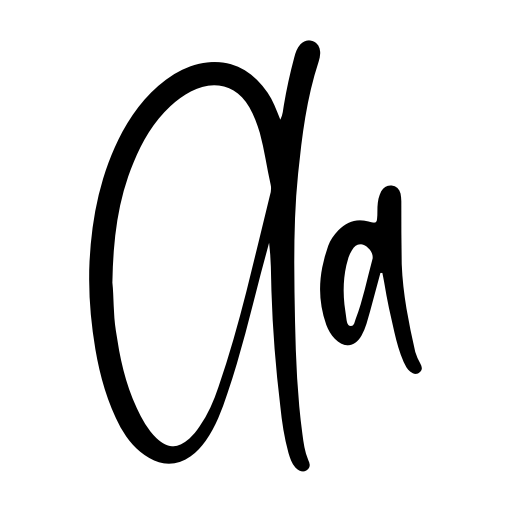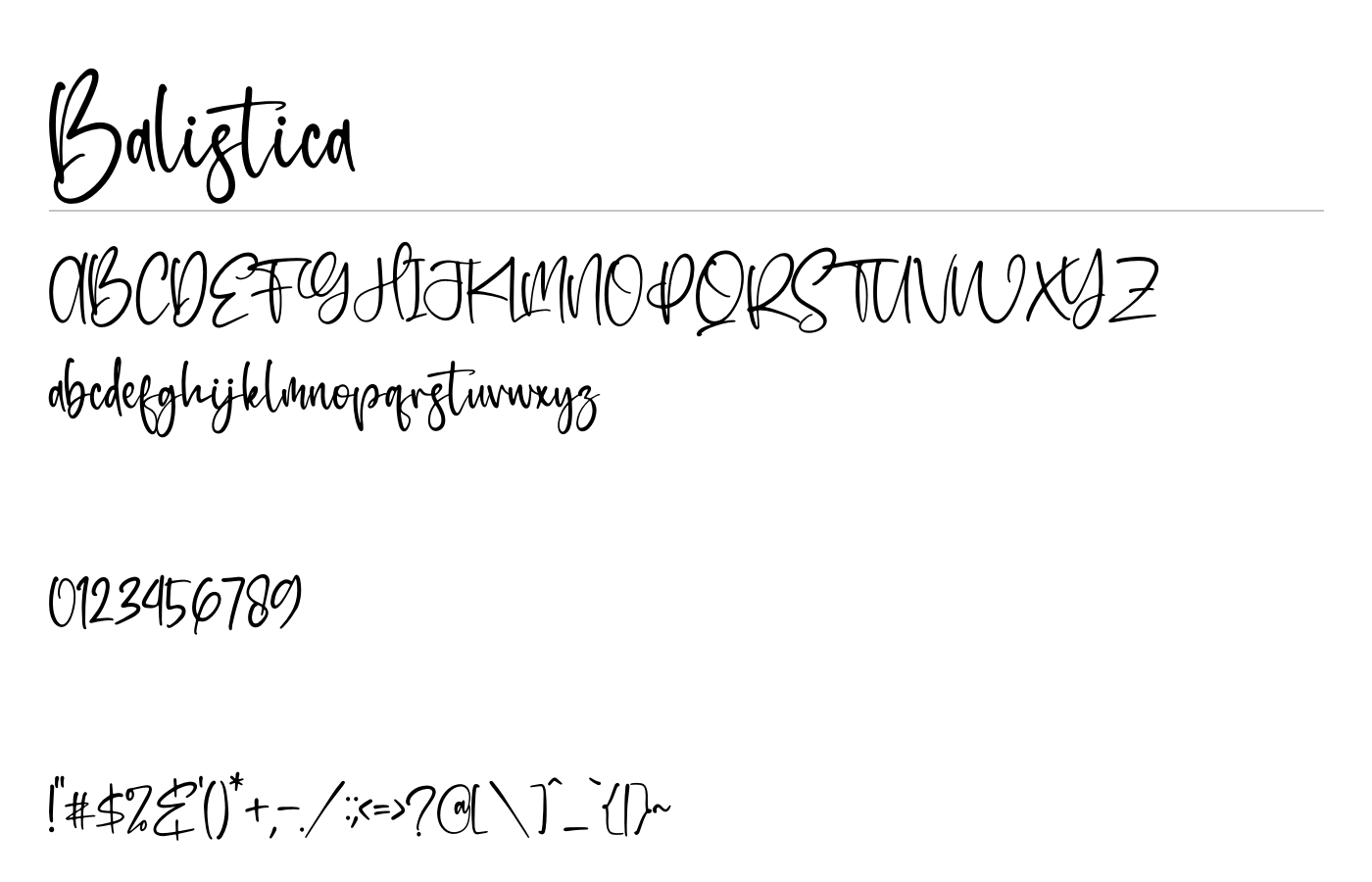
Balistica is a playful and elegant handwritten script font with a casual, flowing style that feels personal and inviting. Its slender, tall letterforms with smooth, varied strokes make it ideal for creative projects that need a touch of warmth and personality, such as invitations, branding, or social media graphics. The font's friendly yet refined look works well for designs seeking a charming, approachable feel without sacrificing style.
Balistica Font
About Balistica Font